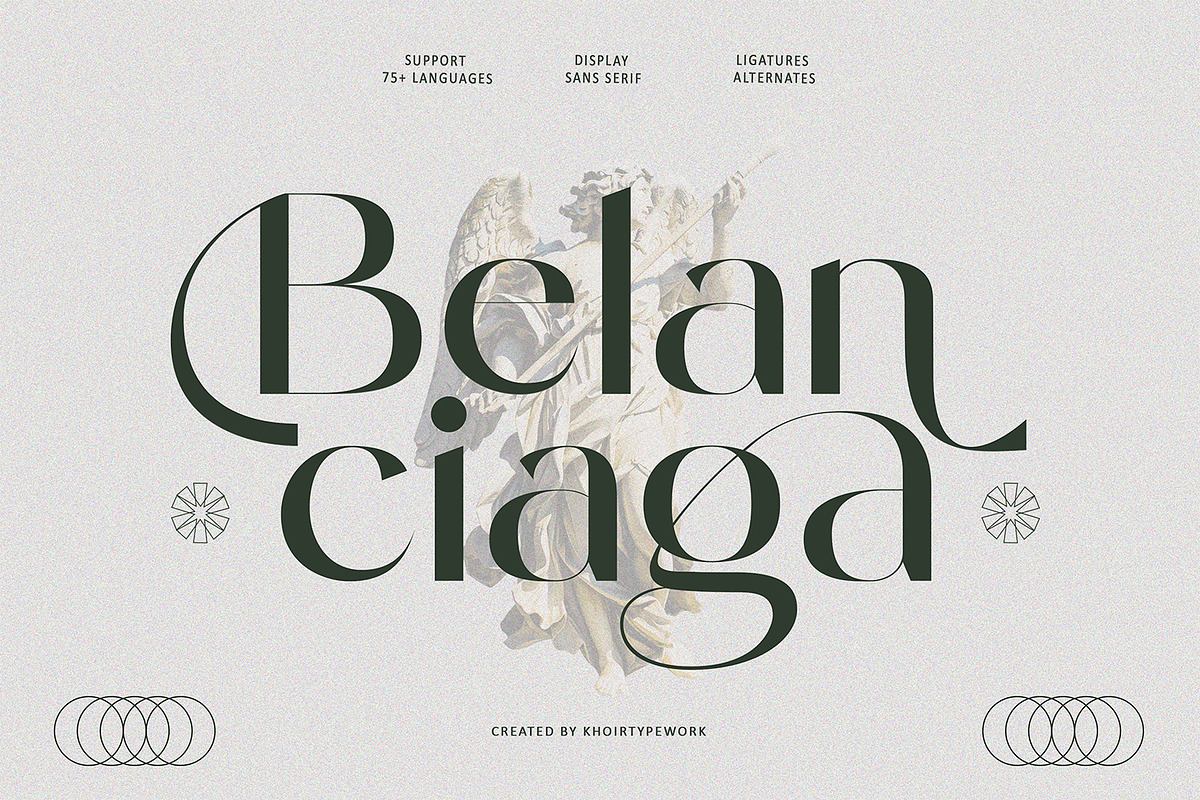
Belanciaga - Modern Sans Serif Free Download
Belanciaga Modern Sans Serif Font Free Download
Belanciaga Modern Sans Serif Free Download is a sleek, minimalist typeface designed to bring a sophisticated and contemporary look to your projects. With its clean lines, refined geometry, and balanced proportions, this font is perfect for logos, branding, packaging, editorial layouts, websites, and any design that demands modern elegance.
Whether you’re crafting a high-end brand identity, designing a minimalist website, or creating polished marketing materials, Belanciaga delivers clarity, professionalism, and sophistication to your typography. It’s the ideal font for designers seeking a modern, luxurious sans-serif look.